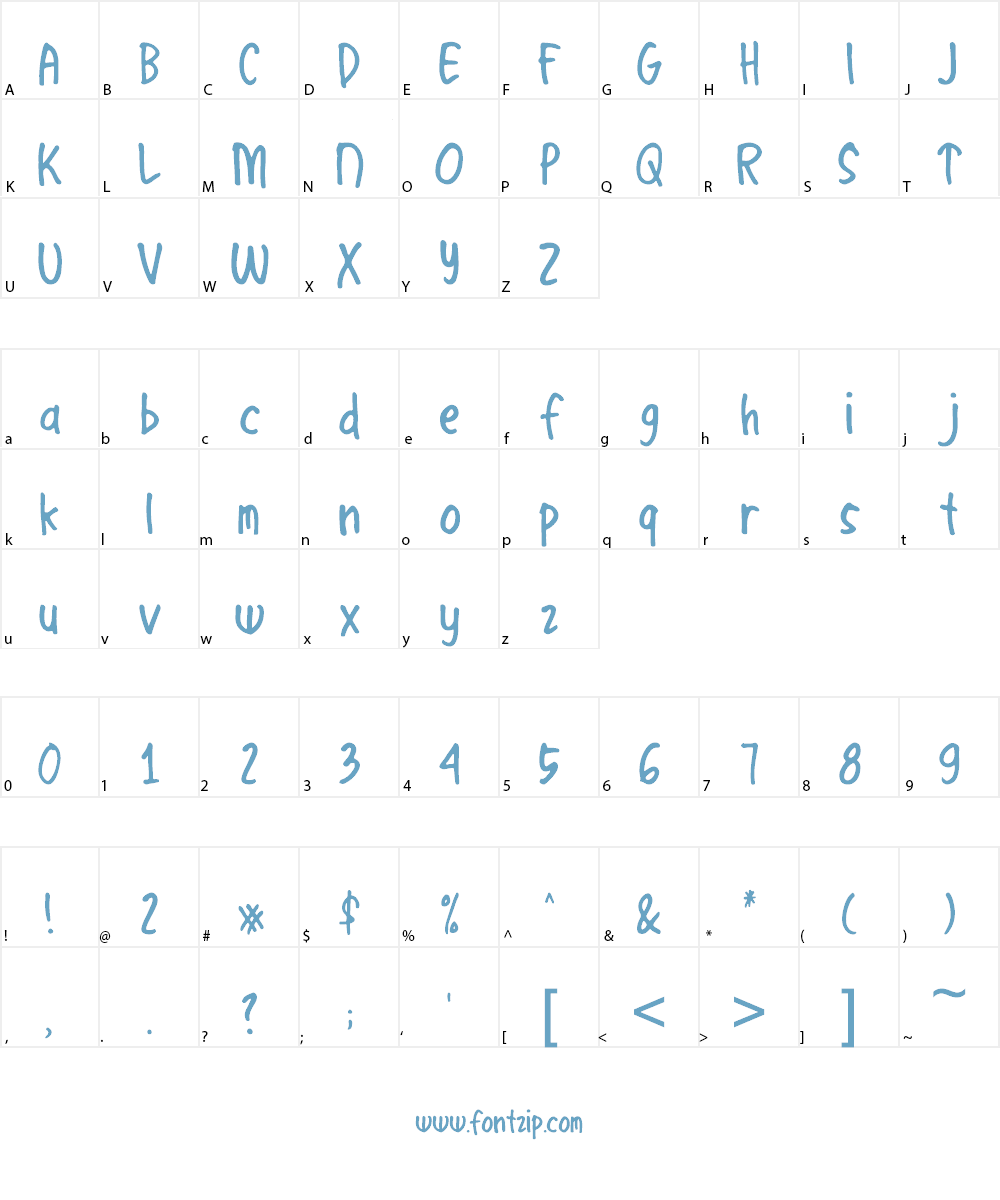
Ayrton is our new font in this month made by hand written from our designer. This font have a natural characteristic, so genuine! Ayrton is perfect for your natural and casual concept design.